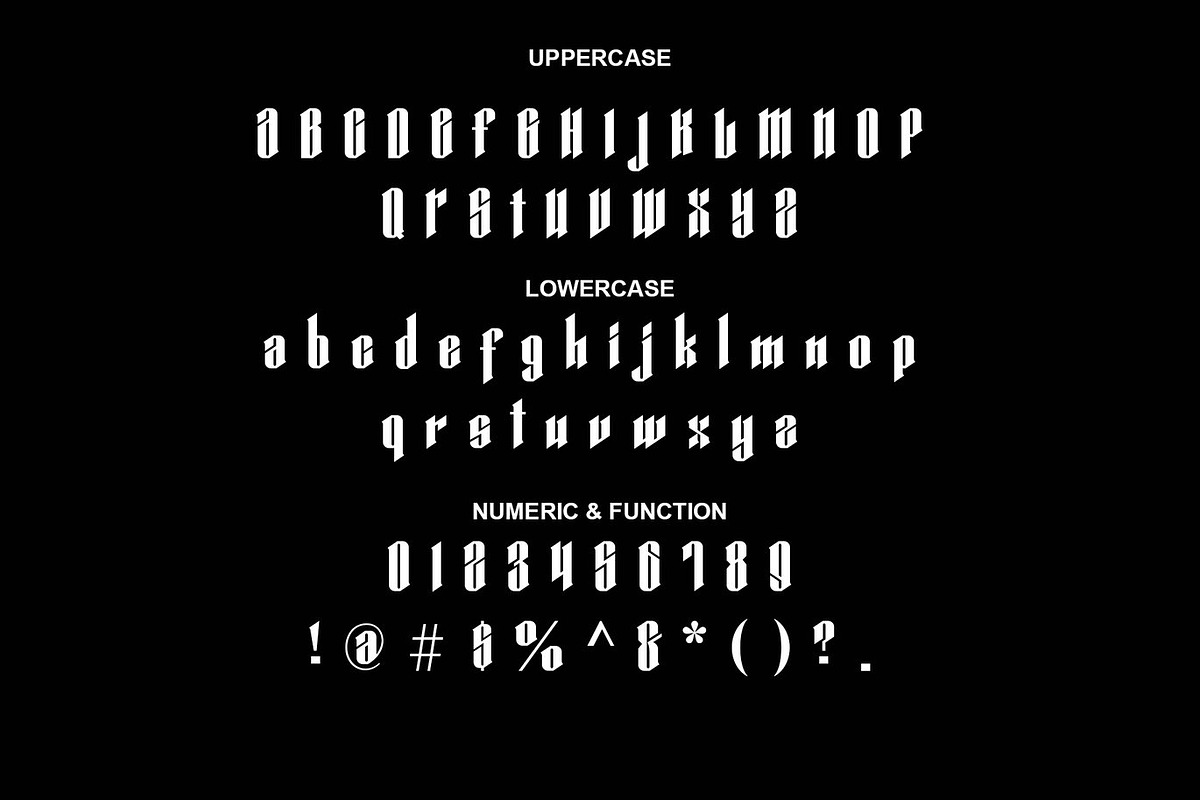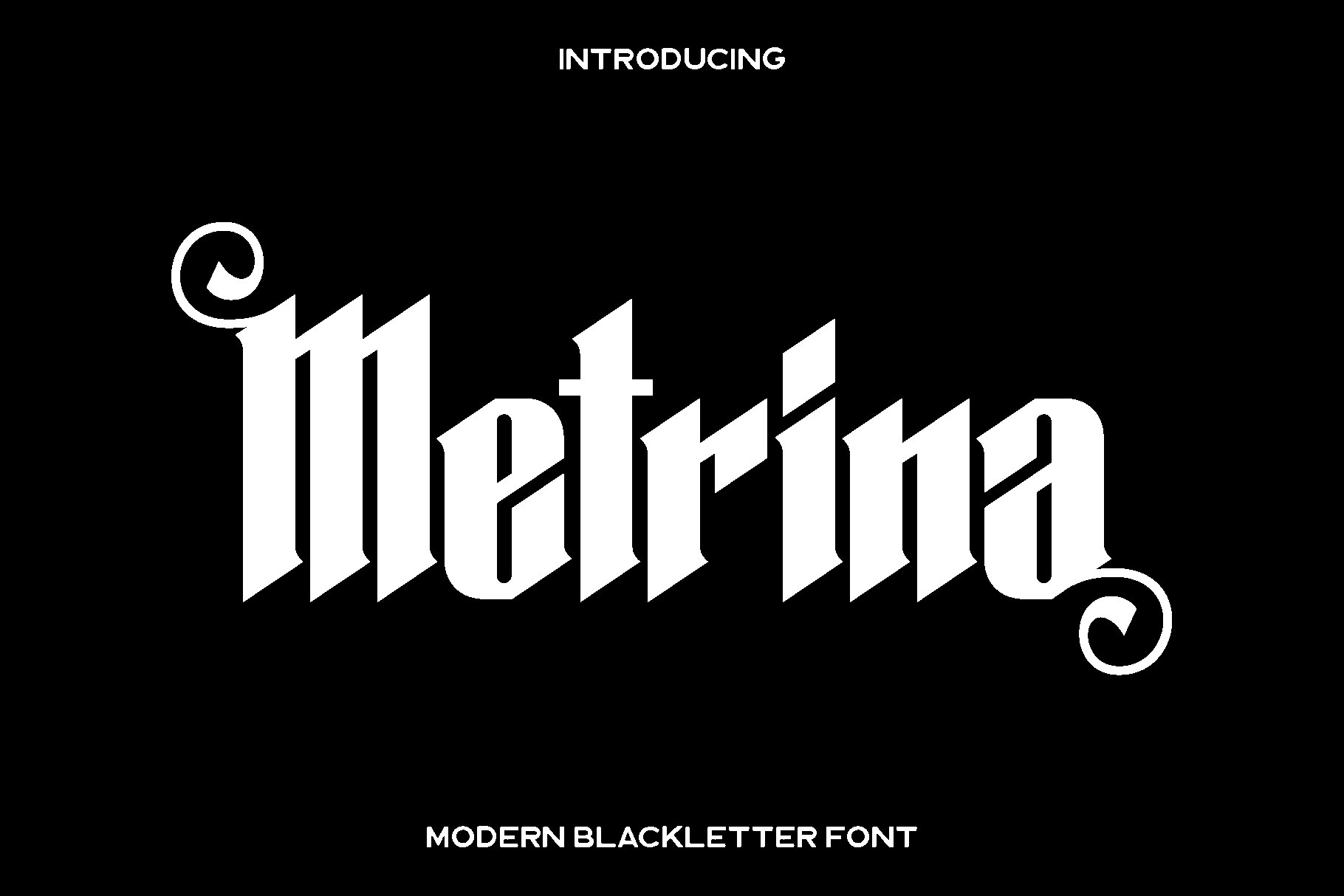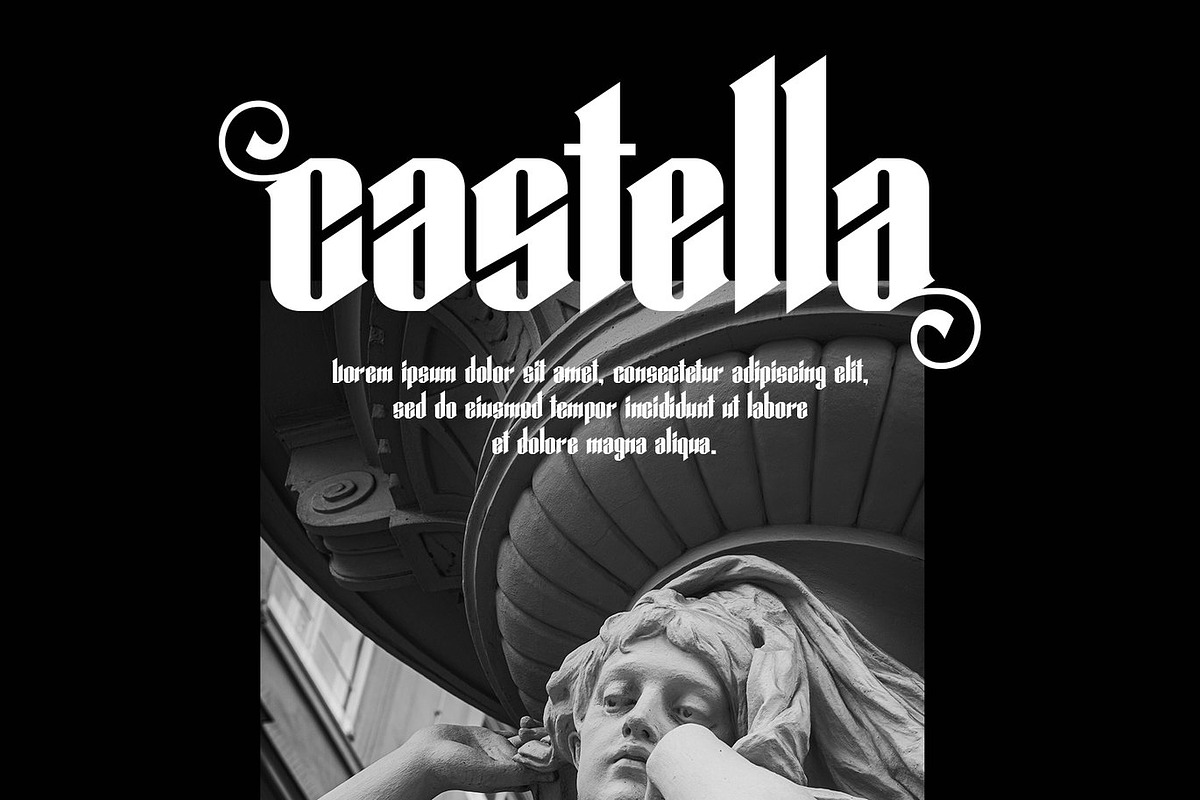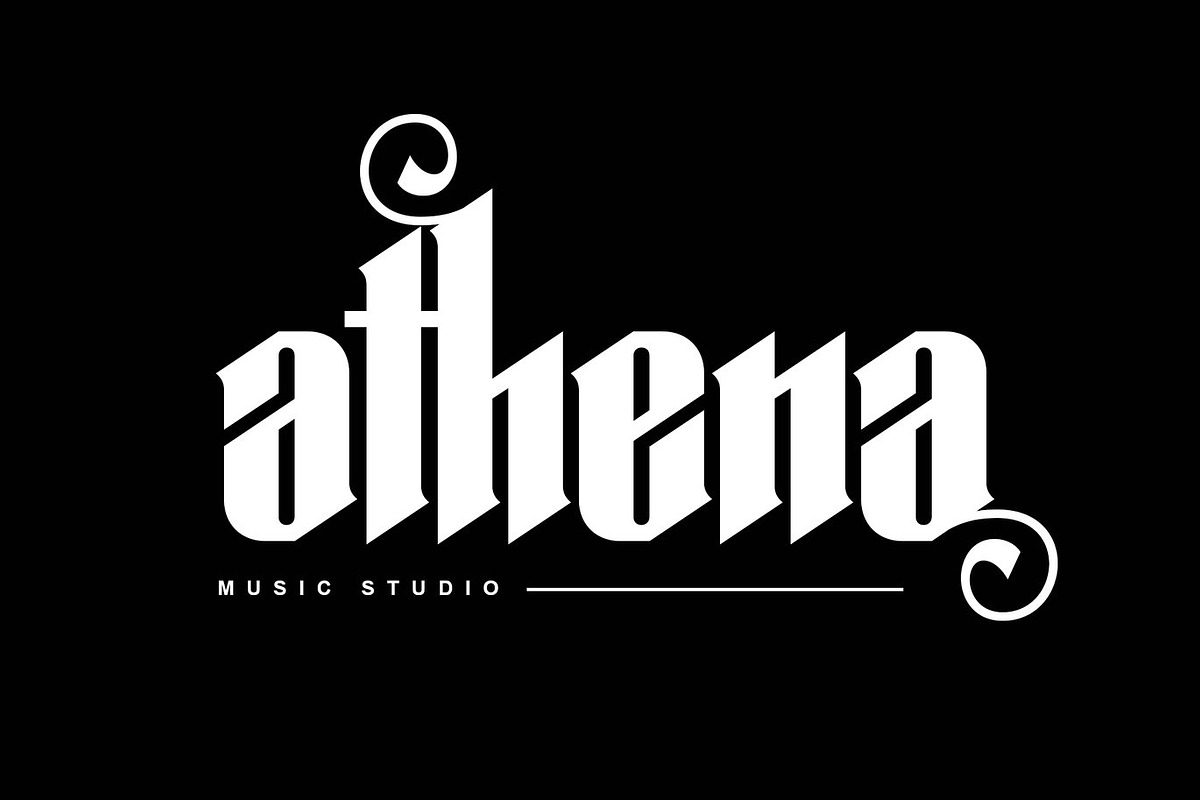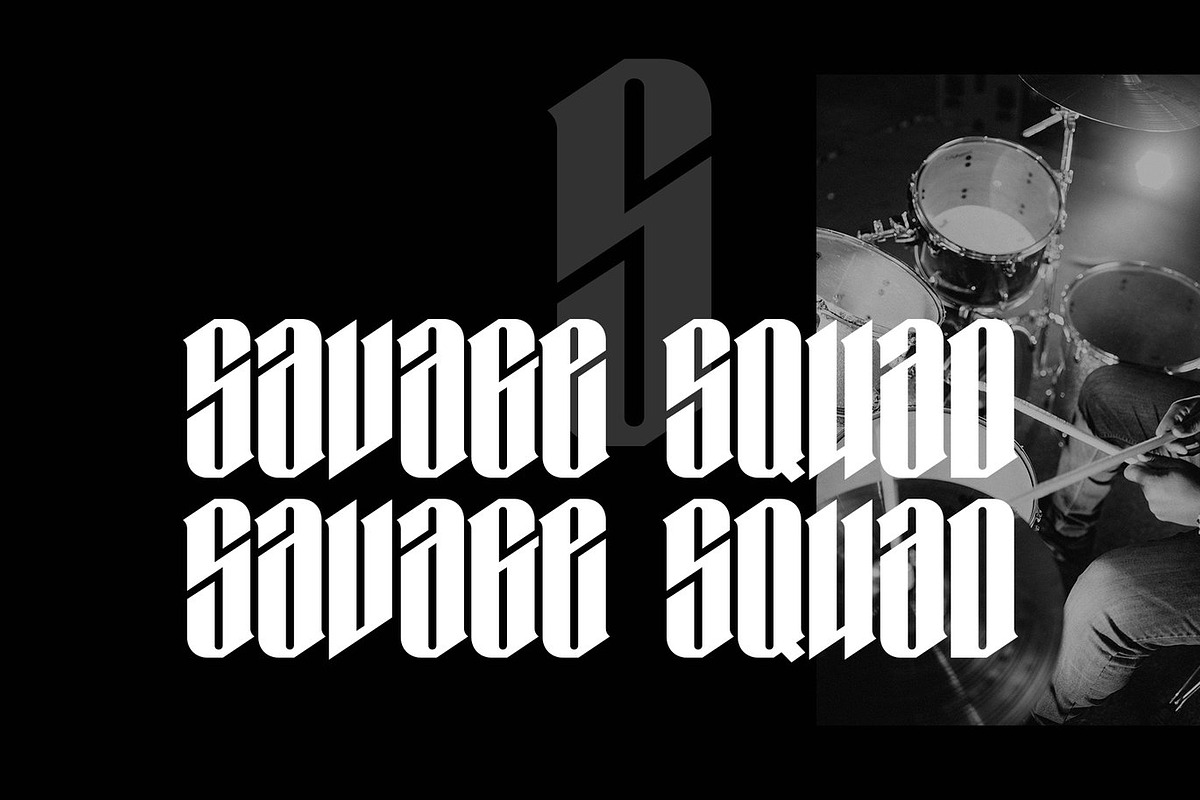
Metrina - Modern Blackletter Font
Metrina is a modern Blackletter font created to redefine classic gothic typography with a bold contemporary attitude. Inspired by traditional Blackletter roots and reimagined through a modern design lens, Metrina blends sharp strokes with balanced proportions to create a strong and expressive visual identity. The result is a font that feels powerful, rebellious, and artistic while remaining clean and versatile.
This font truly shines in creative projects that demand character and intensity. Metrina is an excellent choice for logo design, music bands, album covers, posters, apparel graphics, tattoos, editorial headlines, and statement branding. Its distinctive Blackletter style brings drama and edge, making every word feel intentional and unforgettable. Whether used in large display sizes or as a striking accent, Metrina commands attention with confidence.
Metrina is designed for designers who want to explore creativity beyond the ordinary. Its modern construction makes it suitable for both digital and print applications, allowing you to experiment freely across different visual themes. With strong letterforms and multilingual support, Metrina delivers flexibility without losing its bold personality.
Metrina Modern Blackletter Font Features:
• Uppercase and lowercase characters
• Numerals and functional punctuation
• Multilingual support